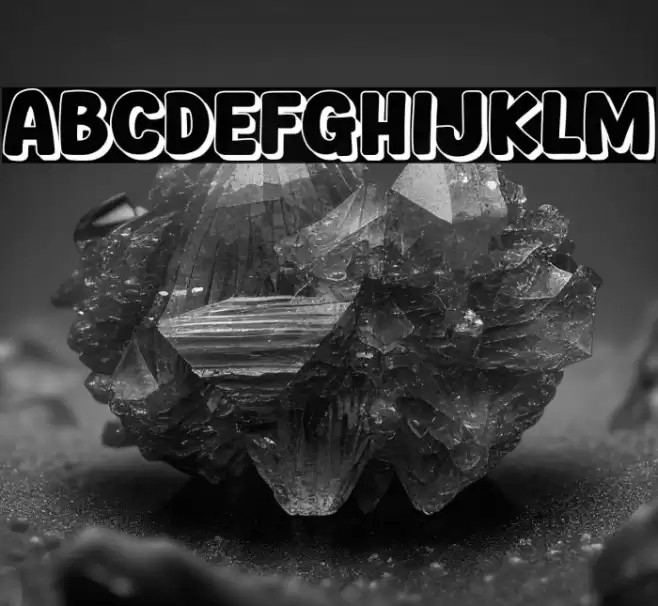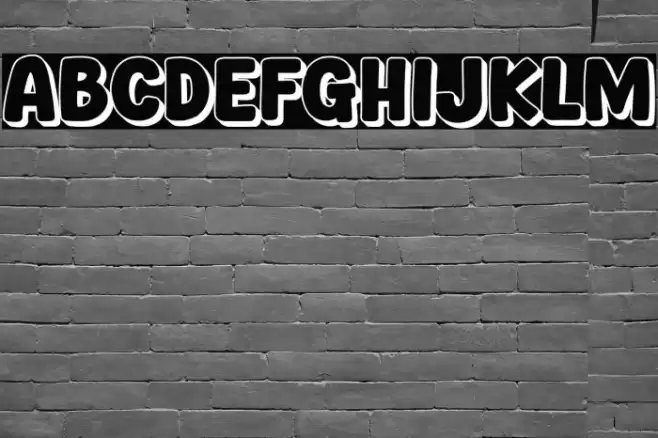
This Cafe Font
This playful and bold font features a thick, rounded style with a three-dimensional shadow effect that gives it a cartoonish and lively appearance. The characters are uniformly bold, with a consistent stroke width that enhances readability while maintaining a fun and informal vibe. The font's design is characterized by its smooth curves and slightly exaggerated proportions, making it ideal for capturing attention and conveying a sense of whimsy and creativity. The numbers and special characters follow the same stylistic approach, ensuring a cohesive look across all text elements.
A bold, playful font with rounded characters and a 3D shadow effect from Uncategorized fonts.
- Font: This Cafe
- Proposed Projects: Ideal for children's books, comic strips, playful branding, and eye-catching posters.
- Overall Style: Playful, Cartoonish